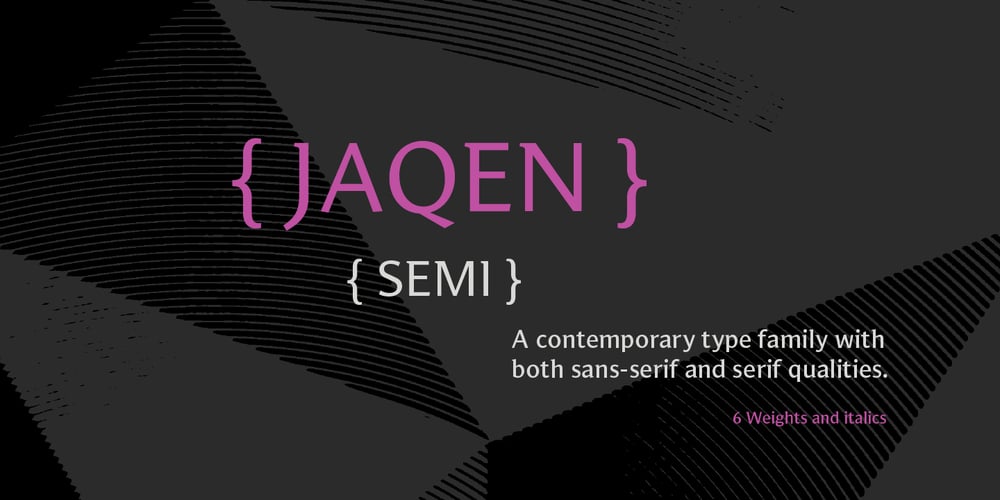
Jaqen Semi
Jaqen Semi font
Jaqen Semi Font Family was designed by Jonathan Hill and published by The Northern Block. Jaqen Semi contains 6 styles and family package options. Jaqen Semi is a contemporary type family with both sans-serif and serif qualities. Drafted by hand using overlays of the serif version ‘Jaqen’ to help maintain natural letter shapes and consistency the typeface is then digitally produced. The result is a well-defined semi-serif type family with the right balance, form and personality for creating stand out work in the digital era.Details include over 800 characters, six weights with true italics, ten variations of numerals, Opentype features inferiors, superiors, fractions, ligatures, small-caps and language support covering Western, South, Central Europe and Vietnamese.